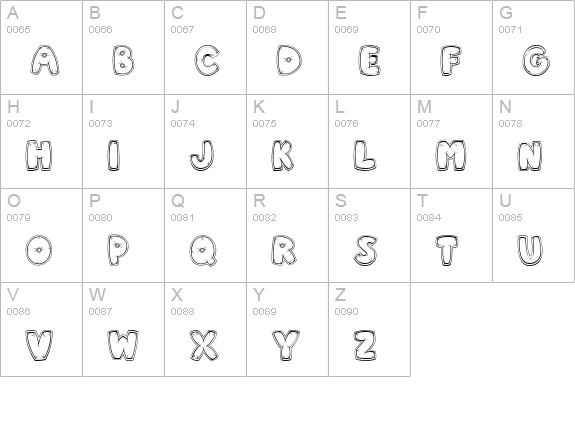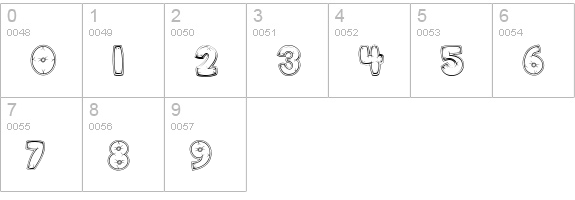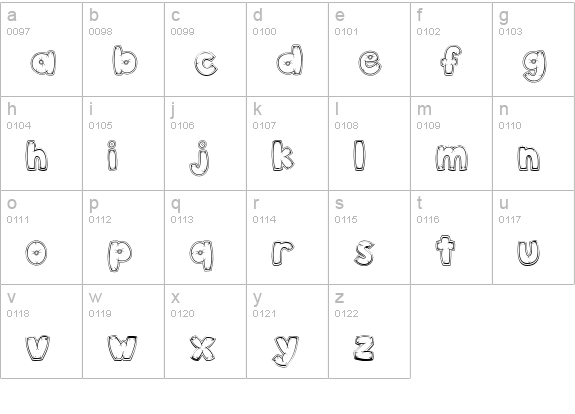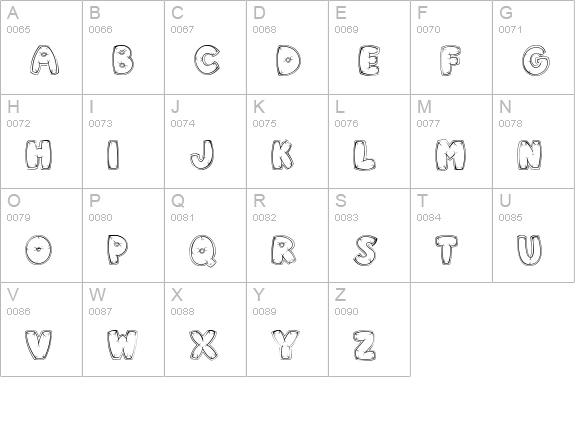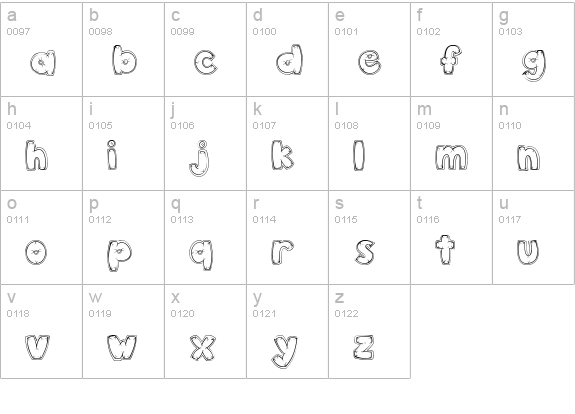
CK Pillow Font Details
Introducing CK Pillow font, a charming and versatile typeface perfect for adding a touch of whimsy and playfulness to your designs. This unique font features soft, rounded edges that give it a cozy and inviting feel, making it ideal for a variety of projects such as greeting cards, invitations, branding, and more. CK Pillow font is a delightful choice for anyone looking to infuse their designs with a sense of warmth and comfort. With its friendly and approachable appearance, this font is sure to capture the hearts of your audience and leave a lasting impression. The best part? CK Pillow font is completely free to download at FontsMarket.com, allowing you to access this delightful typeface without breaking the bank. Don't miss out on the opportunity to add a touch of whimsy to your projects with CK Pillow font today!